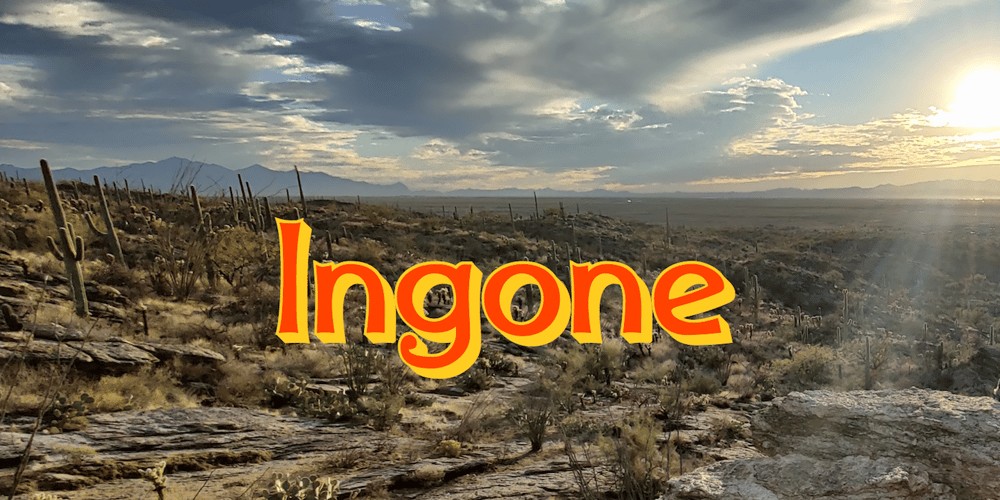
Ingone Font Family was designed by Robert Schenk and published by Ingrimayne Type. Ingone contains 3 styles and family package options. Ingone is a slightly irregular sans-serif face. It was designed to complement PattyDay and HeyPumpkin, but can be used alone if you need an informal, friendly sans-serif font. It has only one weight, but the family includes a shadowed style.In 2018 the inside of the shadowed version was separated out and made a separate typeface. The letters have the shapes of the regular version but the spacing of the shadowed version and can be layered with the shadowed version to easily produce lettering with two colors.